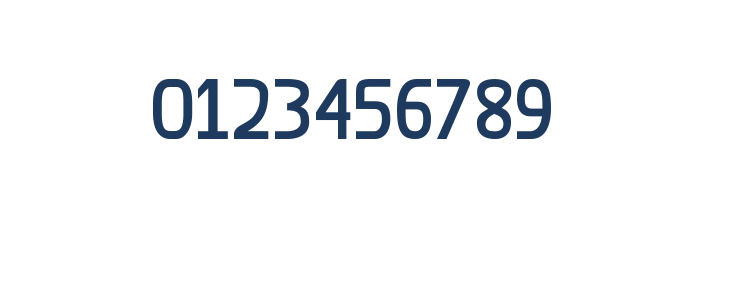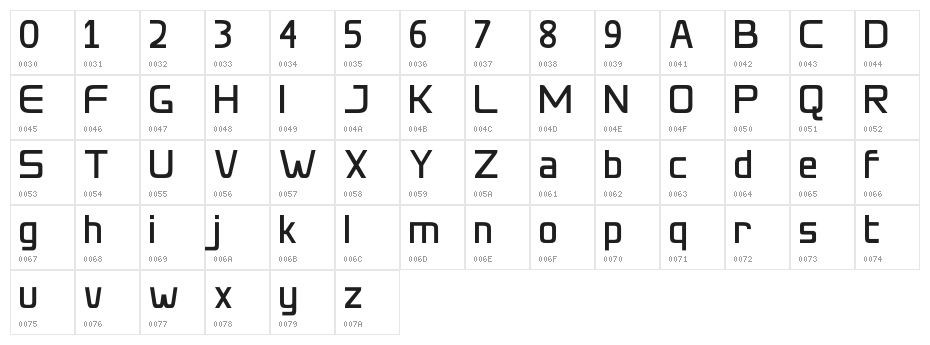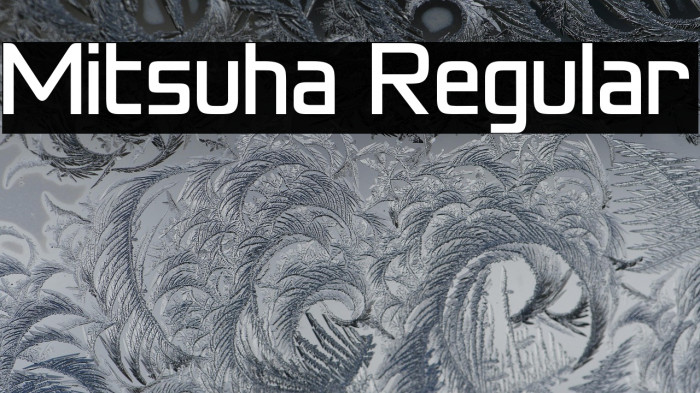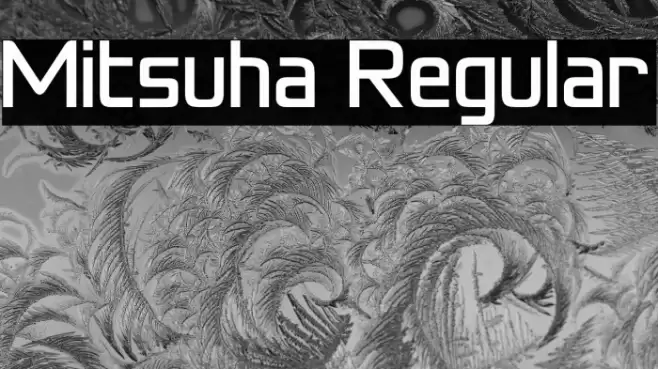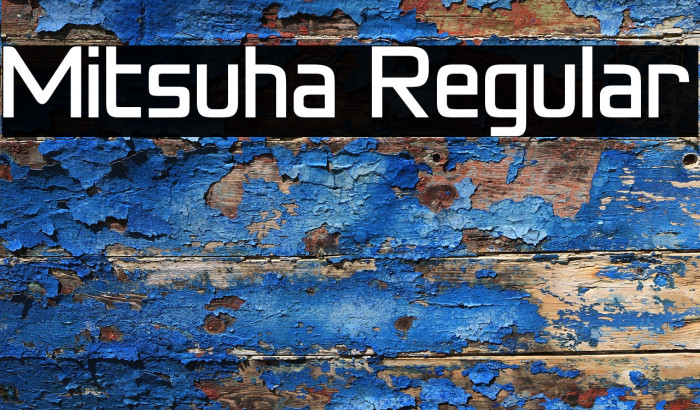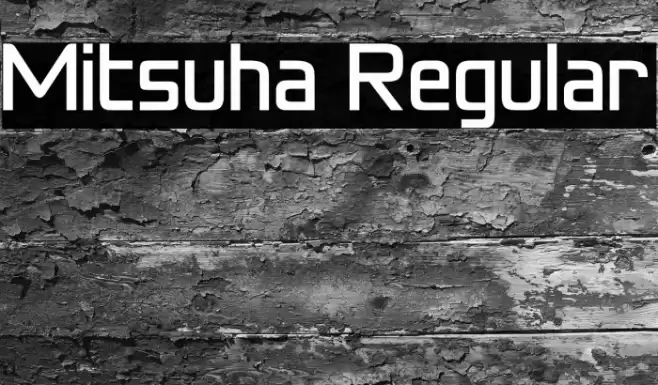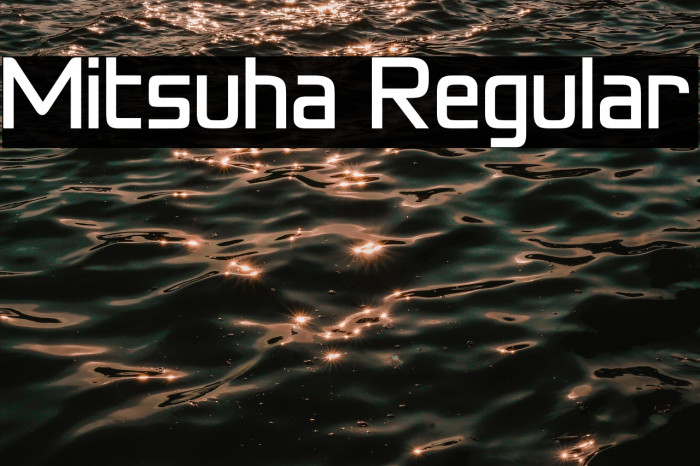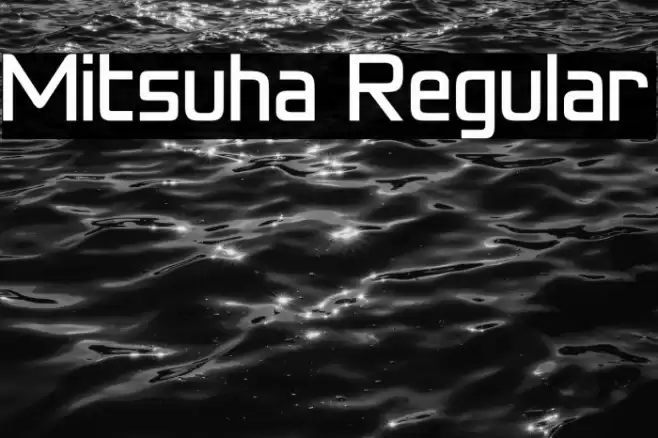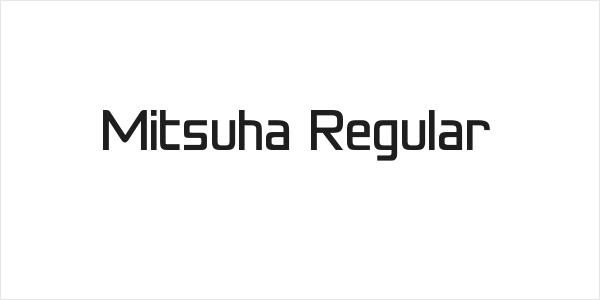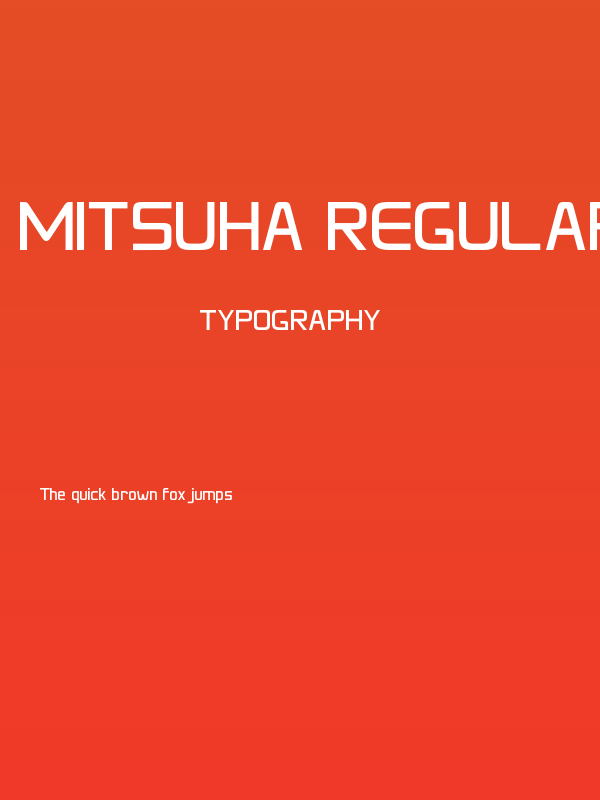
Mitsuha Regular Font
Mitsuha Regular Description
This font features a modern, geometric sans-serif style with clean lines and a uniform structure. The characters are well-balanced, offering a harmonious blend of curves and straight edges. The uppercase letters are bold and assertive, while the lowercase letters maintain a consistent flow, enhancing readability. The numerals are distinct and easy to distinguish, making them suitable for various applications. The special characters are designed with the same attention to detail, ensuring they integrate seamlessly with the rest of the typeface. Overall, this font exudes a contemporary and professional aesthetic, ideal for digital and print media.